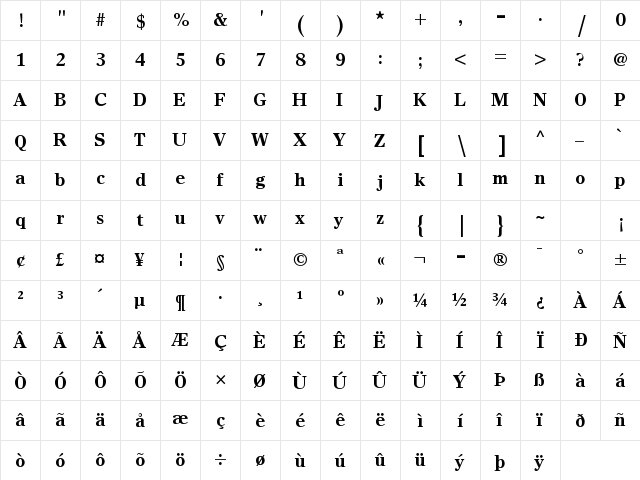
Bahij Yakout Bold Font Preview
Bahij Yakout Bold
Bahij Yakout Bold Font Details
| Foundry | Tiro Typeworks for Adobe Systems Incorporated. |
| Designer | Tim Holloway (Arabic) and Robert Slimbach (Latin) |
Design Context for Bahij Yakout Typeface
Bahij Yakout takes a measured approach to typography — its balanced proportions and neutral character make it a reliable workhorse for both digital and print work. Its bold stroke weight gives it real presence on the page.